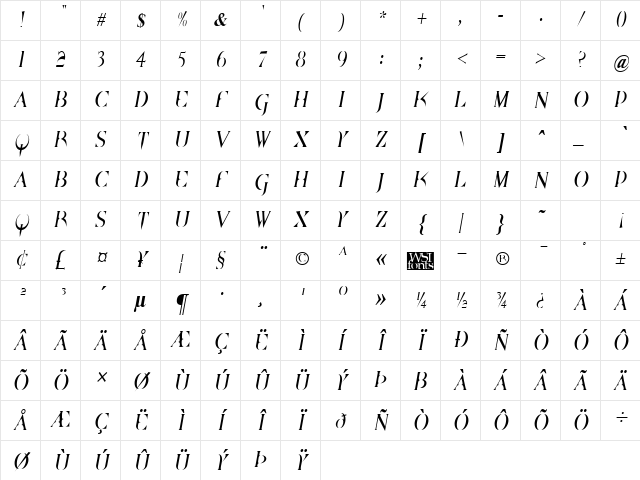
BrazeltonNarrow is a composed and adaptable typeface that performs quietly and consistently across a wide range of design contexts. The slanted form adds forward momentum and visual energy. Its narrow stance lets it pack a punch even in space-constrained designs.
Pro Tip: Use BrazeltonNarrow for emphasis, pull quotes, and subheadings where its slanted energy can add rhythm to the layout.